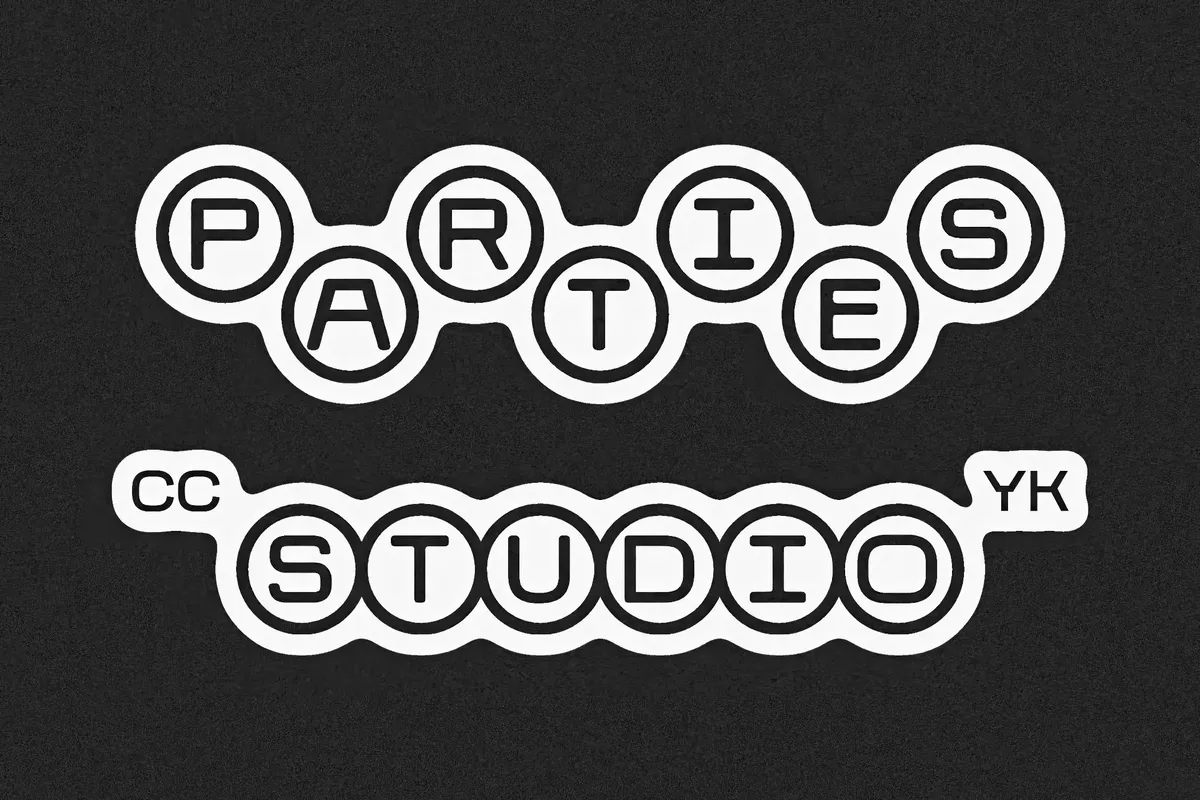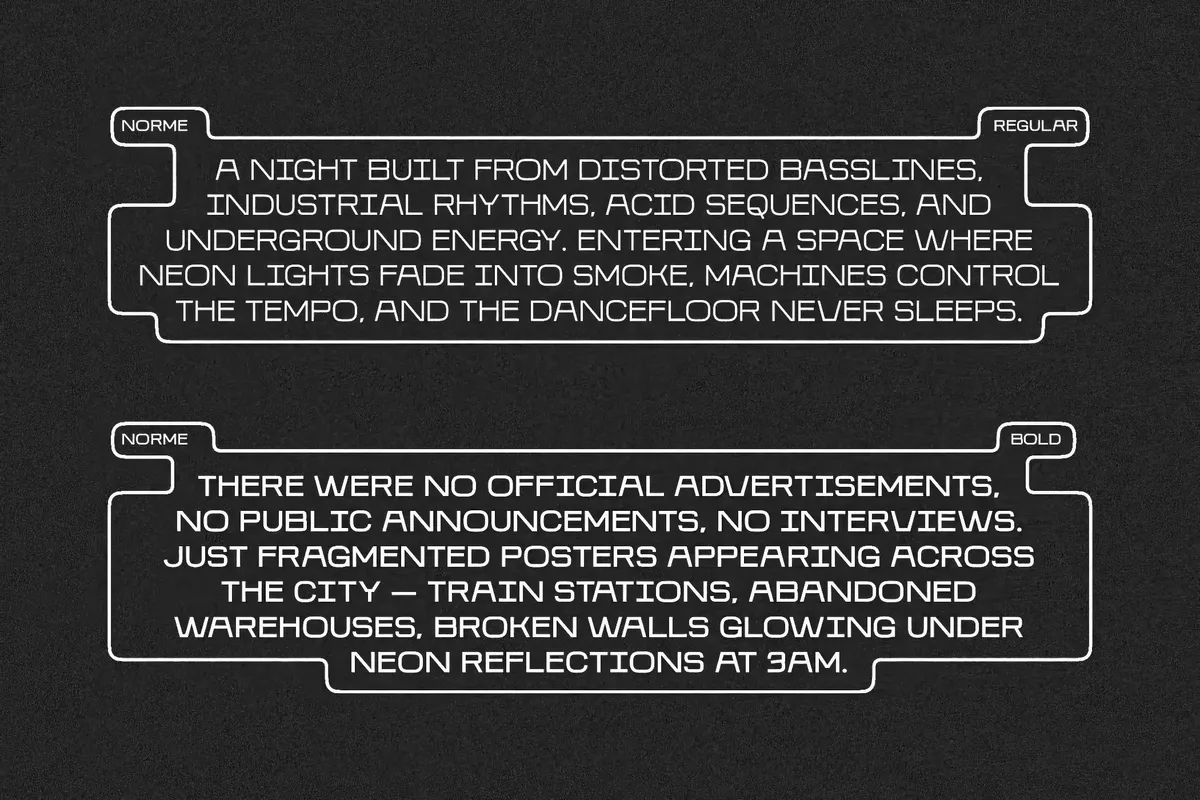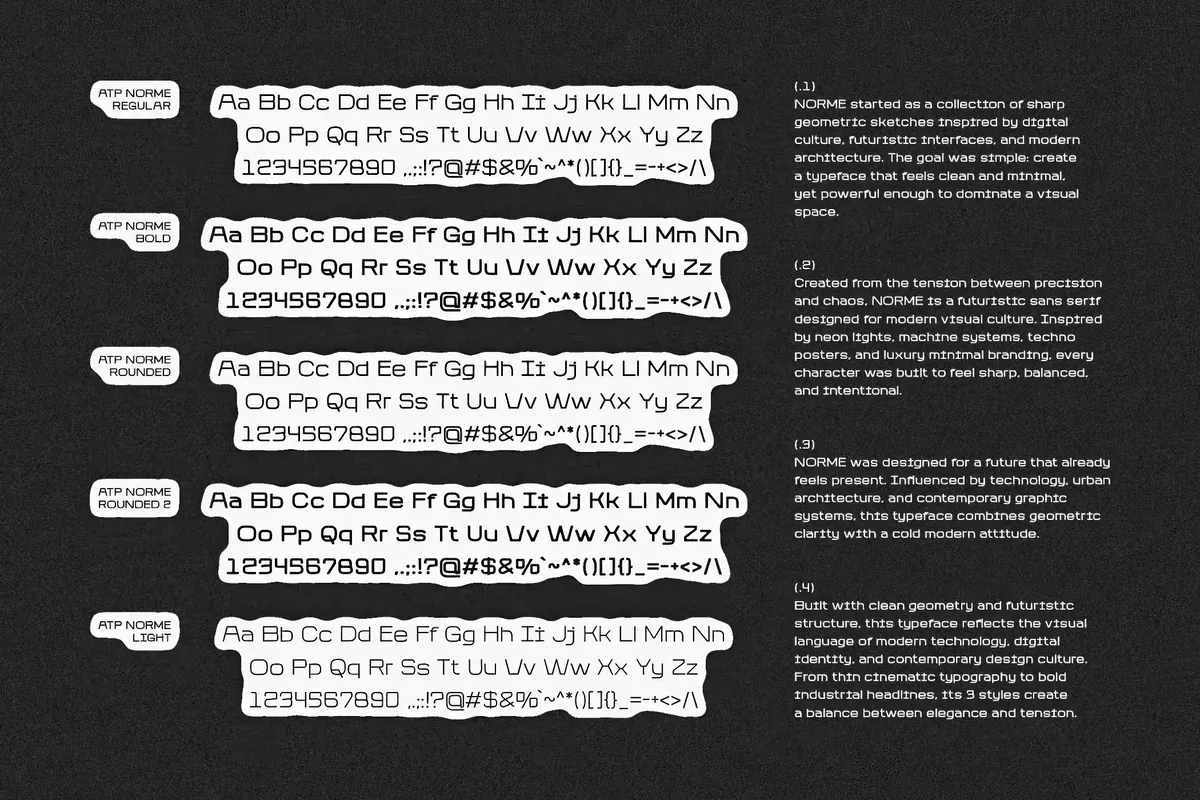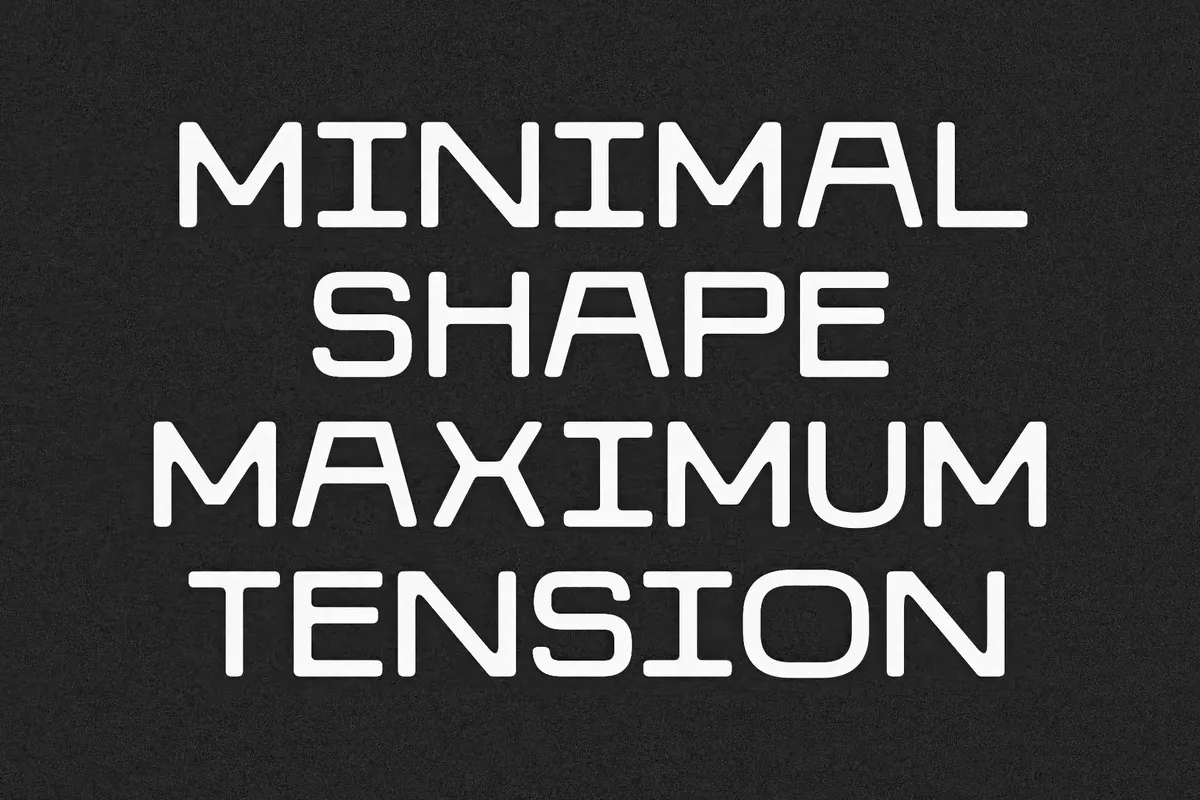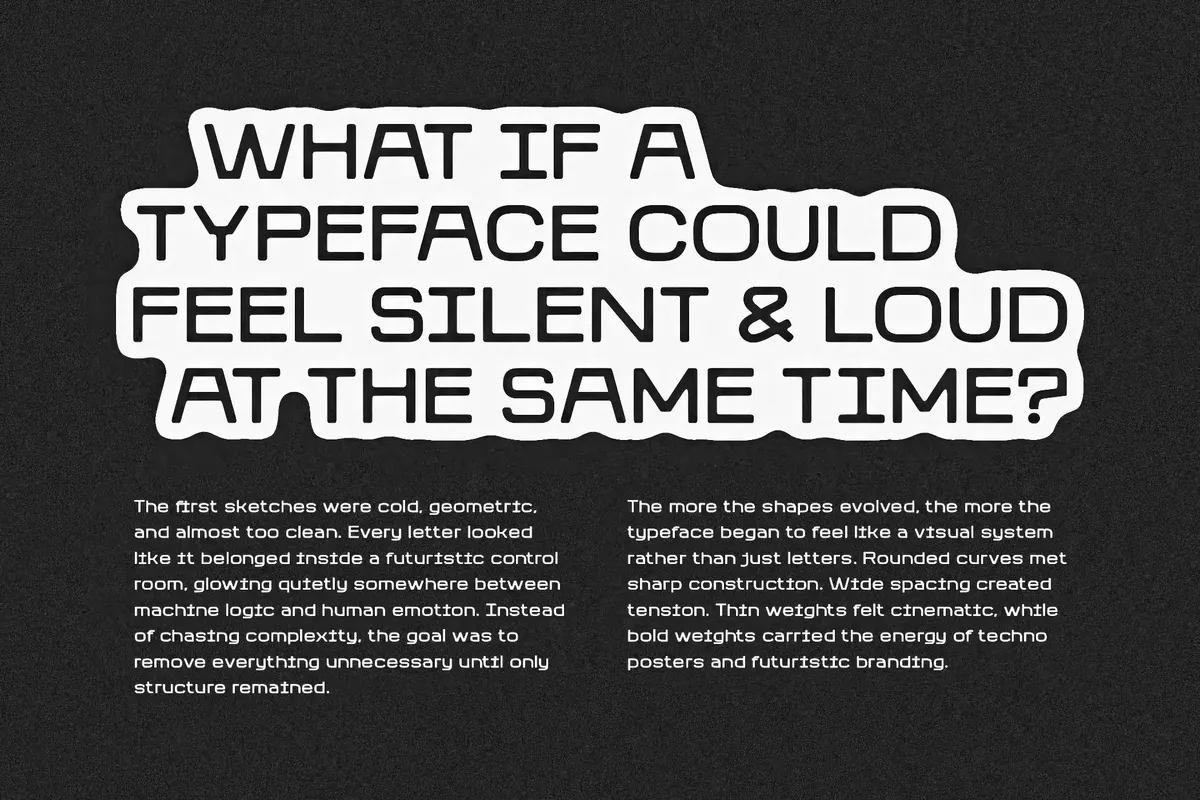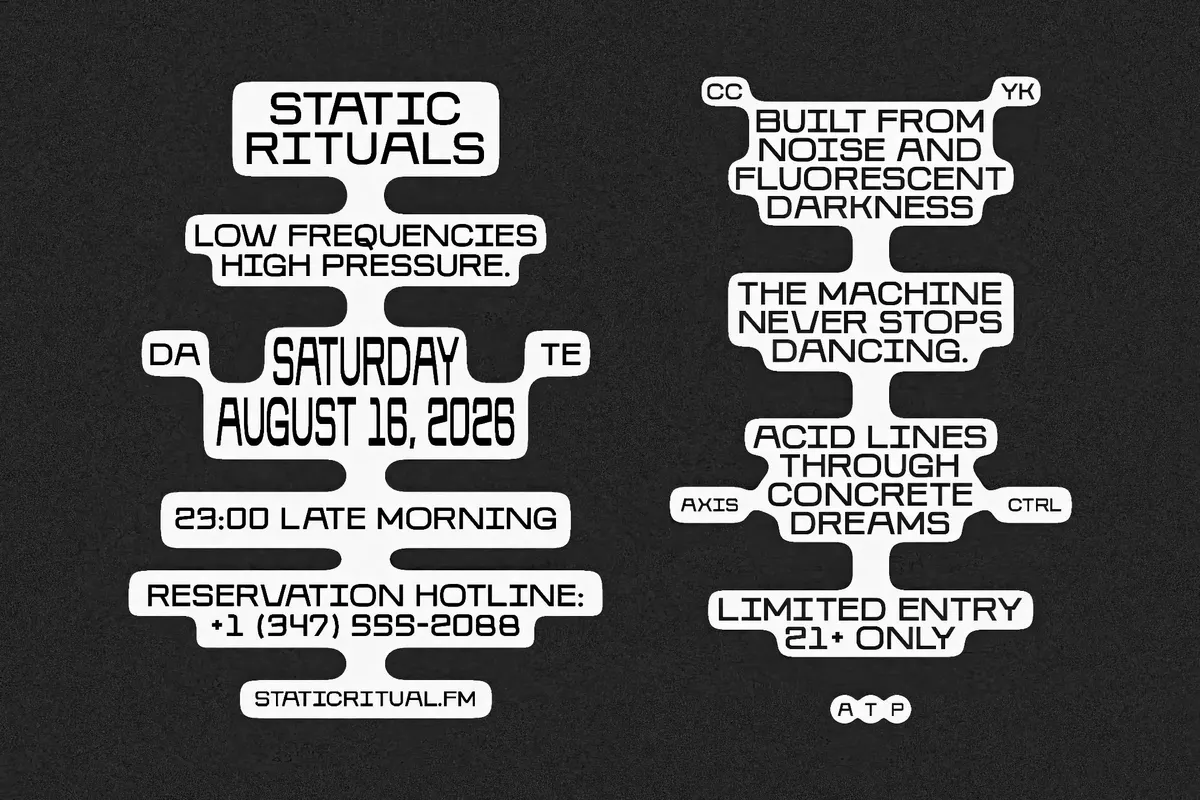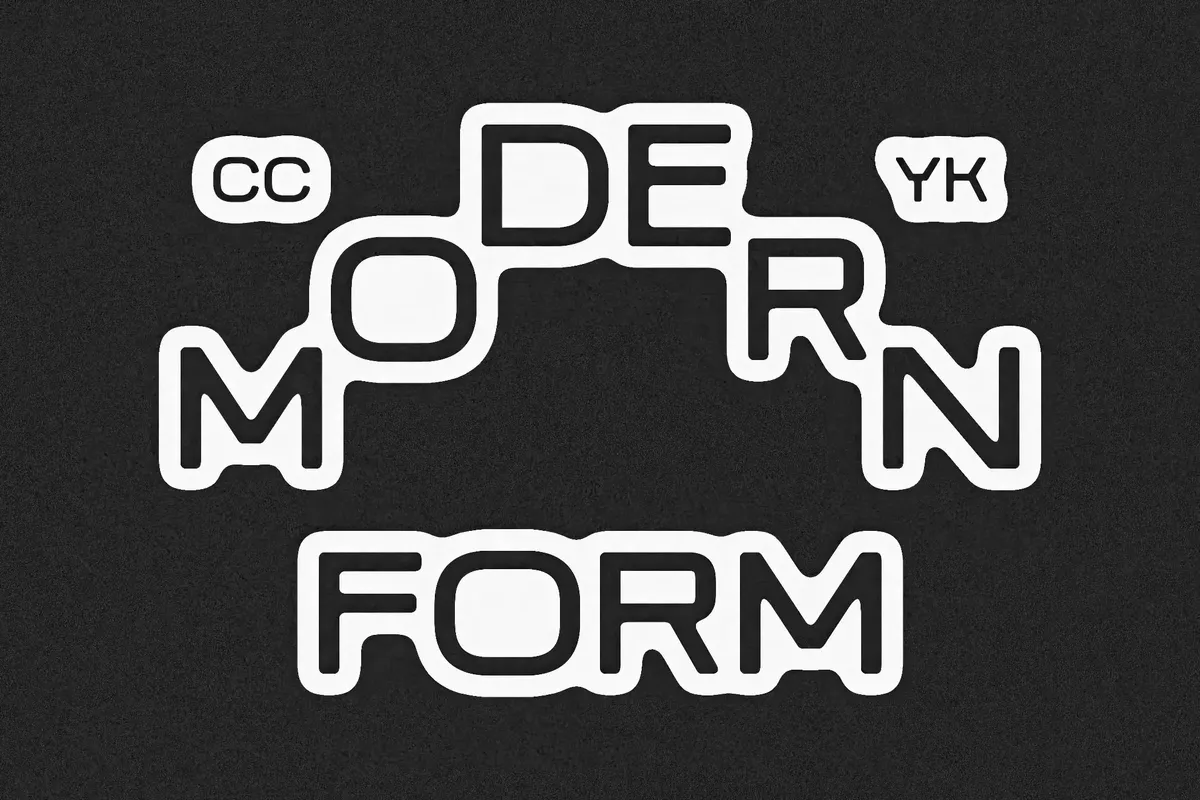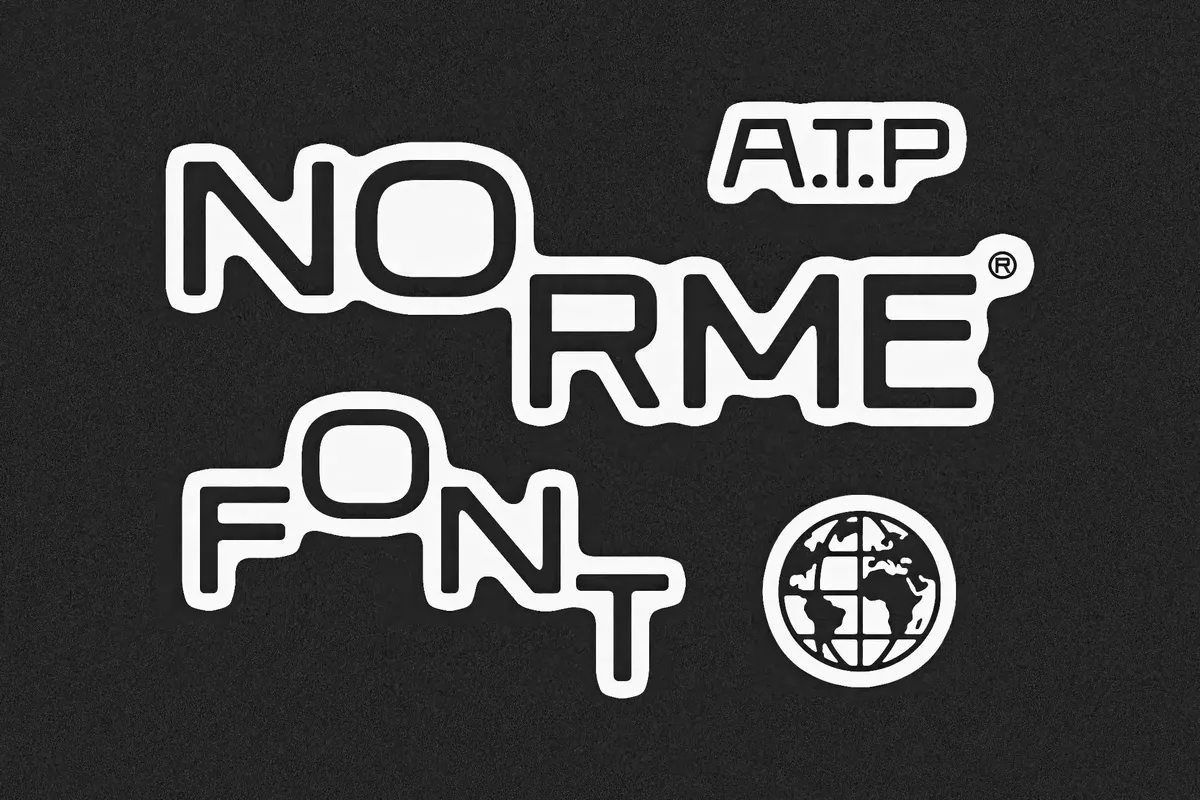
Norme - Geometric Display Font
Norme builds every letter from clean geometric strokes and rounded corners. Wide letter spacing opens up the whole text, giving each character room to breathe. Bold weight carries strong presence for headlines, while lighter weights pull back into something quieter and more restrained.
Uses: logotypes, branding and packaging, poster headlines, editorial covers, sticker sheets, and merch graphics.